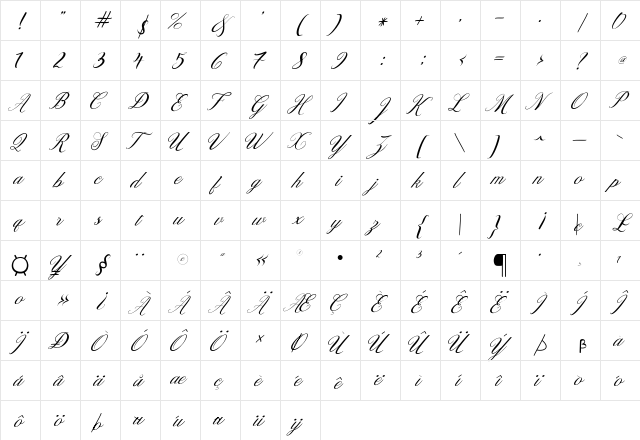
Designest Regular
Design Context for Designest Typeface
Designest is a composed and adaptable typeface that performs quietly and consistently across a wide range of design contexts.